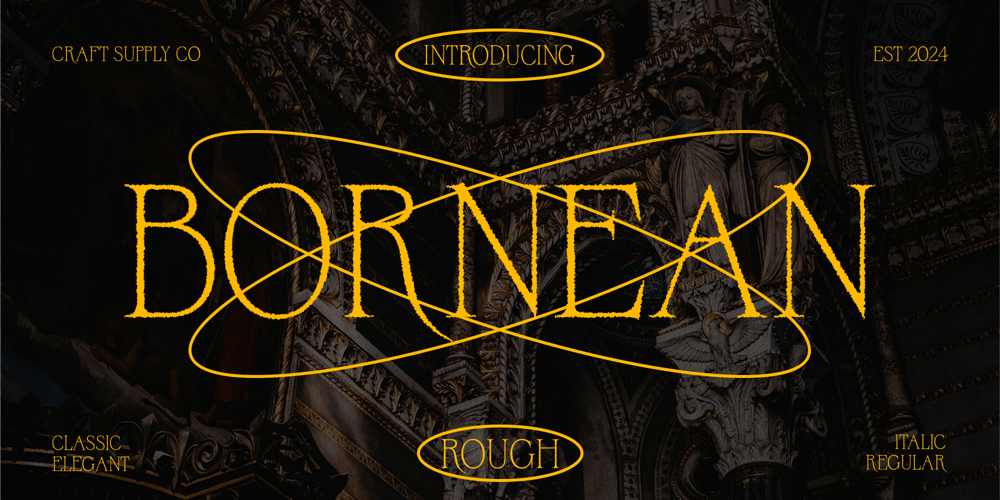
Bornean Rough Font Family was designed by Trio Nazzar Saputra, Wahyu Hadi Yuana and published by Craft Supply Co. Bornean Rough contains 2 styles and family package options. Bornean Rough: Bold and Distinctive Display FontLow-Contrast Serif DesignBornean Rough showcases a low-contrast serif design, giving it a bold and distinctive appearance that commands attention in any display setting. Its sturdy letterforms make a powerful statement.Rough Textured EffectThe font features a rough textured effect, adding a rugged and organic feel to each character. This roughness imbues the font with character and depth, making it stand out in display applications.Ideal for Display PurposesWith its low-contrast serif design and rough textured effect, This font is perfectly suited for display purposes. It excels in headlines, banners, posters, and other prominent design elements.Versatile UsageDespite its bold and rugged aesthetic, This font is versatile in its usage. It can be applied to a wide range of design projects, adding a touch of character and personality to each one.Bold and Versatile Display FontThis font offers a bold and distinctive option for designers seeking a display font with character and depth. Its low-contrast serif design and rough textured effect make it ideal for a variety of display applications, ensuring that your designs make a lasting impression.